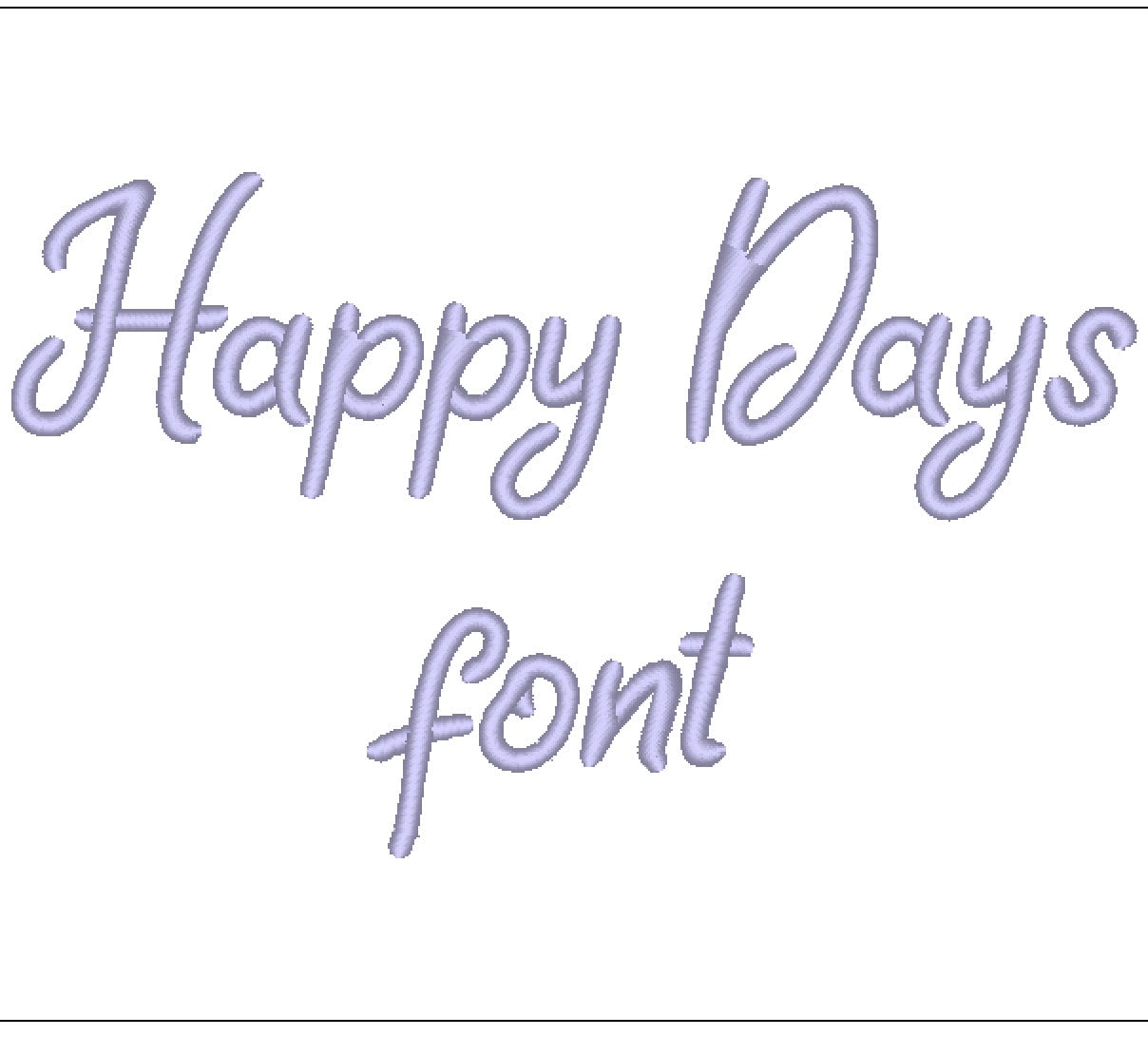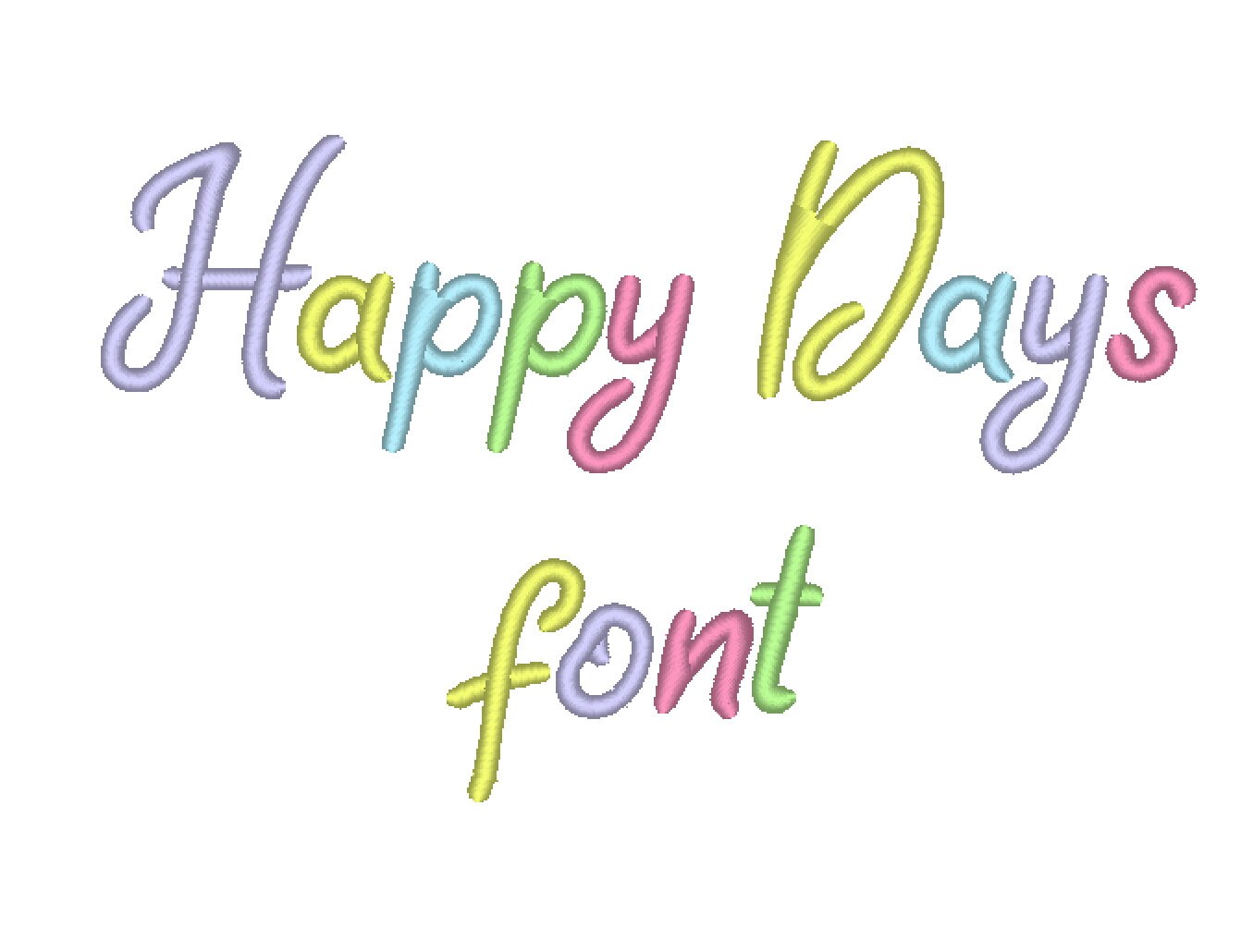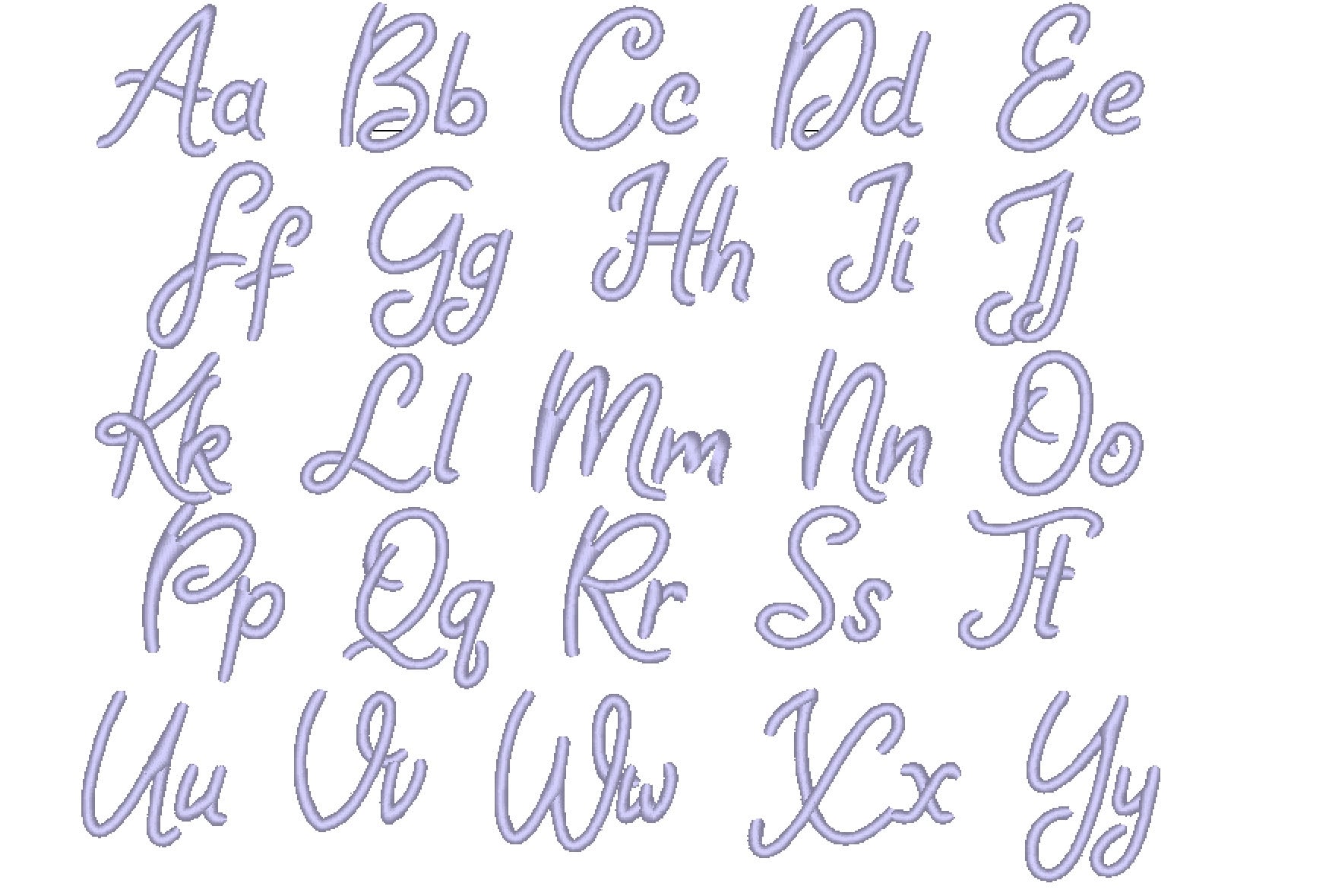
Or click to open the linkA cute curly handwritten font in satin stitch. Sweet for small names, monograms, sayings and kids' clothes.
Uppercase and lowercase letters with curly swashes, in smooth satin stitch, in seven small sizes: 0.4, 0.6, 0.8, 1, 1.2, 1.6 and 2 inches.